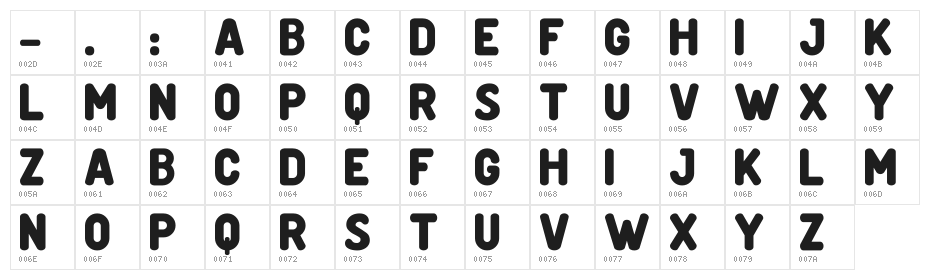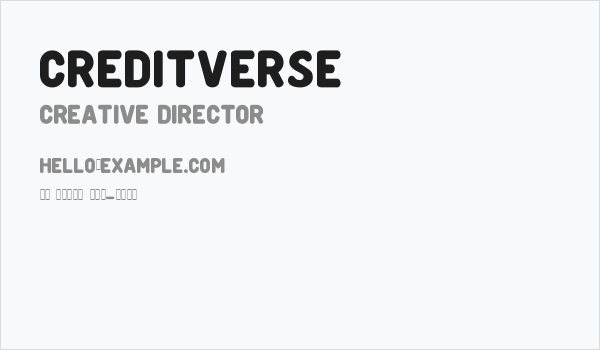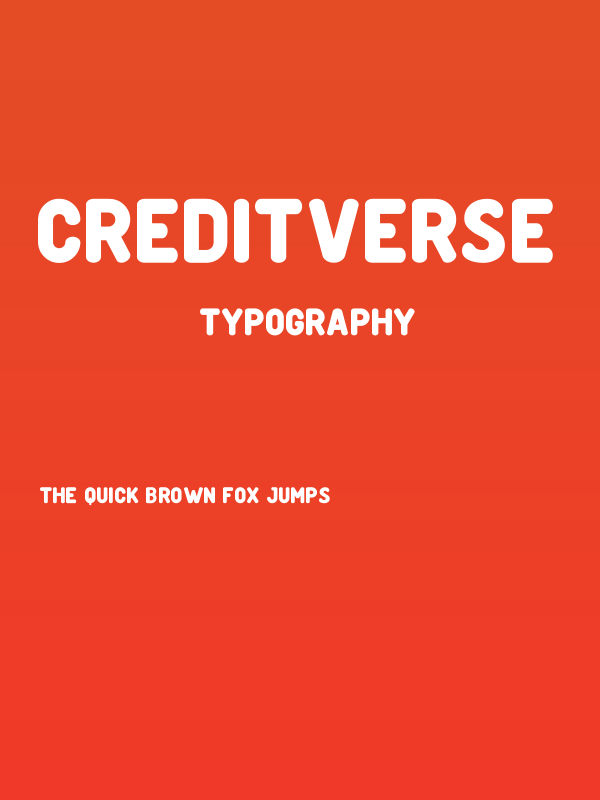
Creditverse Font
| Proiecte propuse | This font is perfect for branding projects, logo design, posters, and any application where a bold statement is needed. |